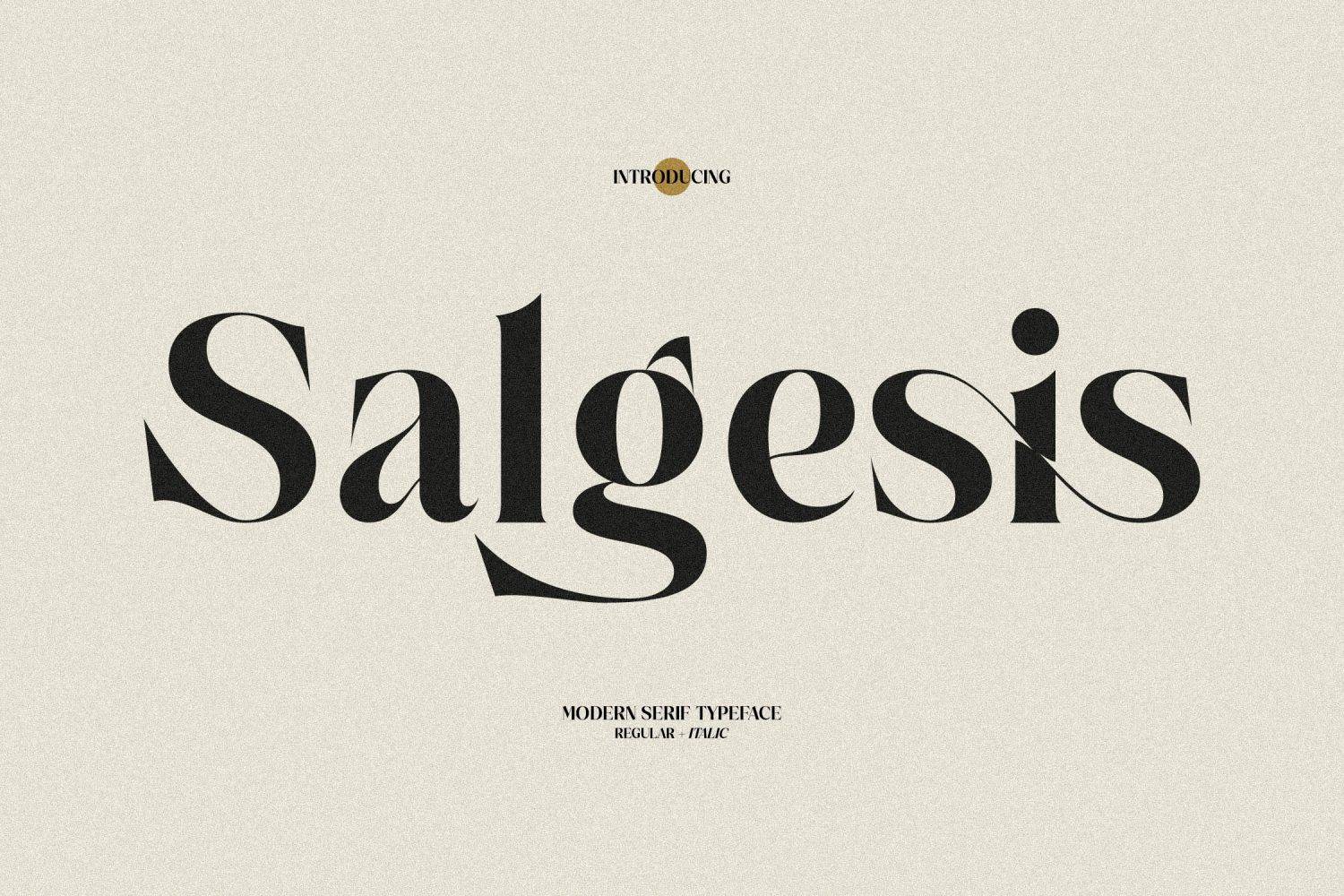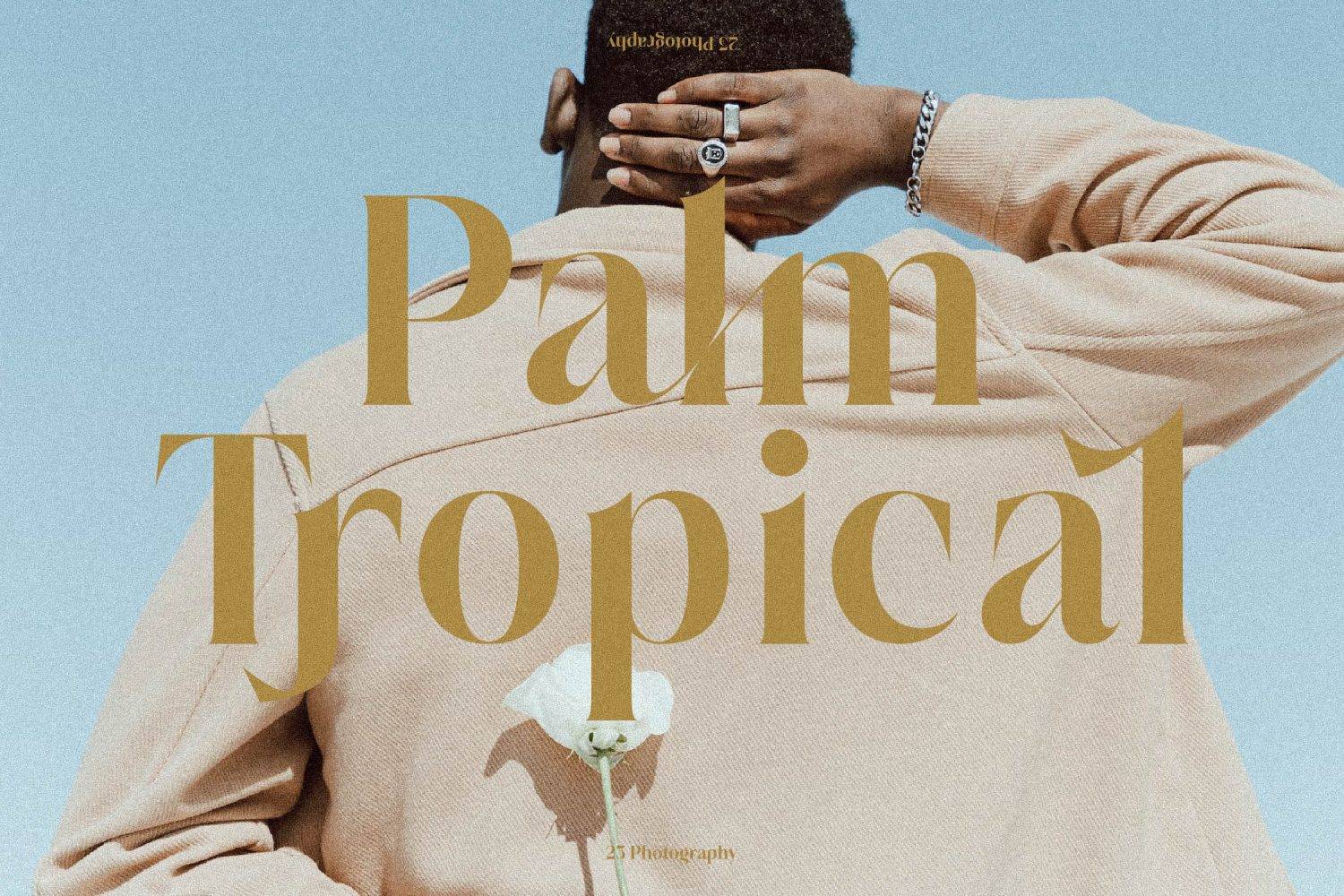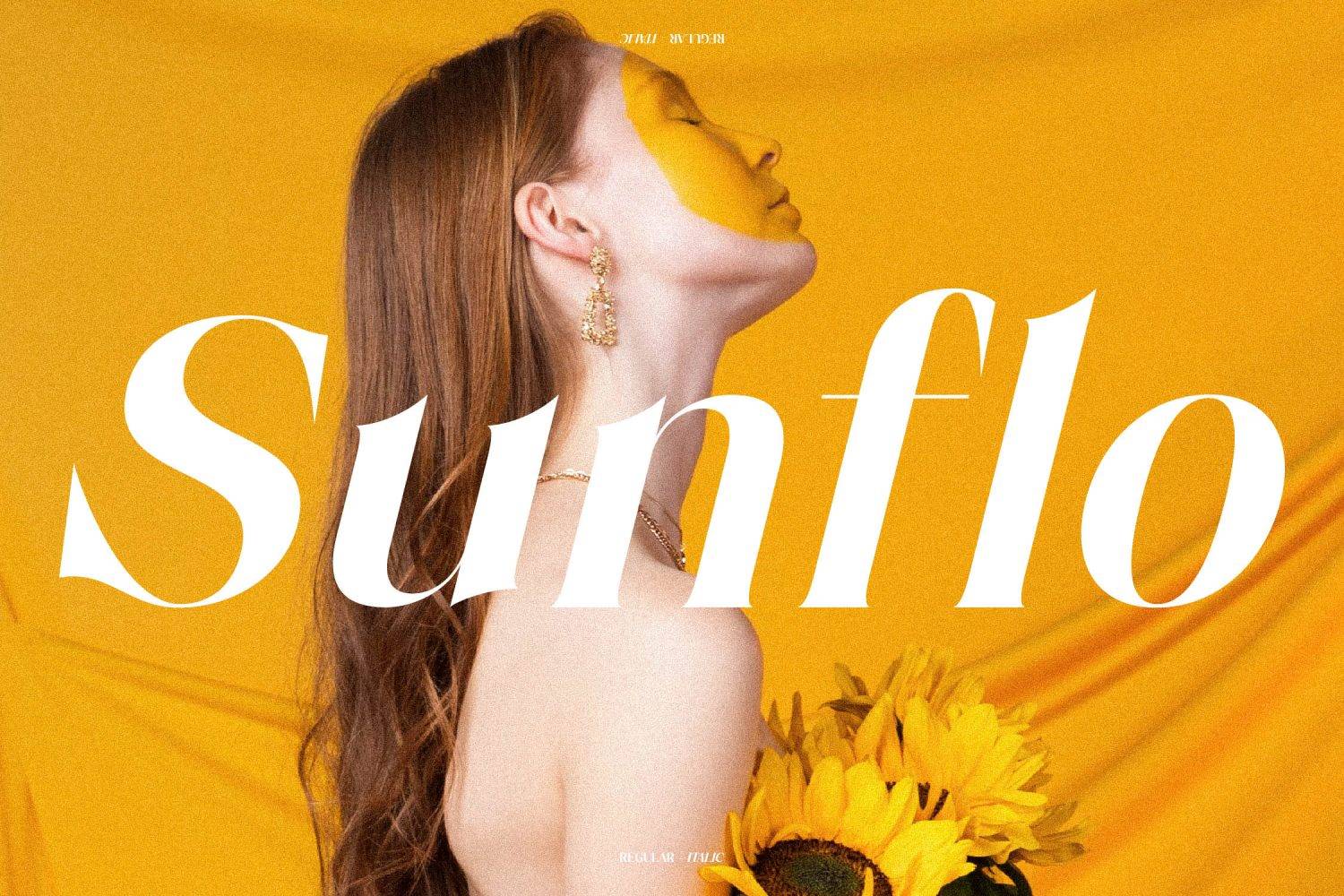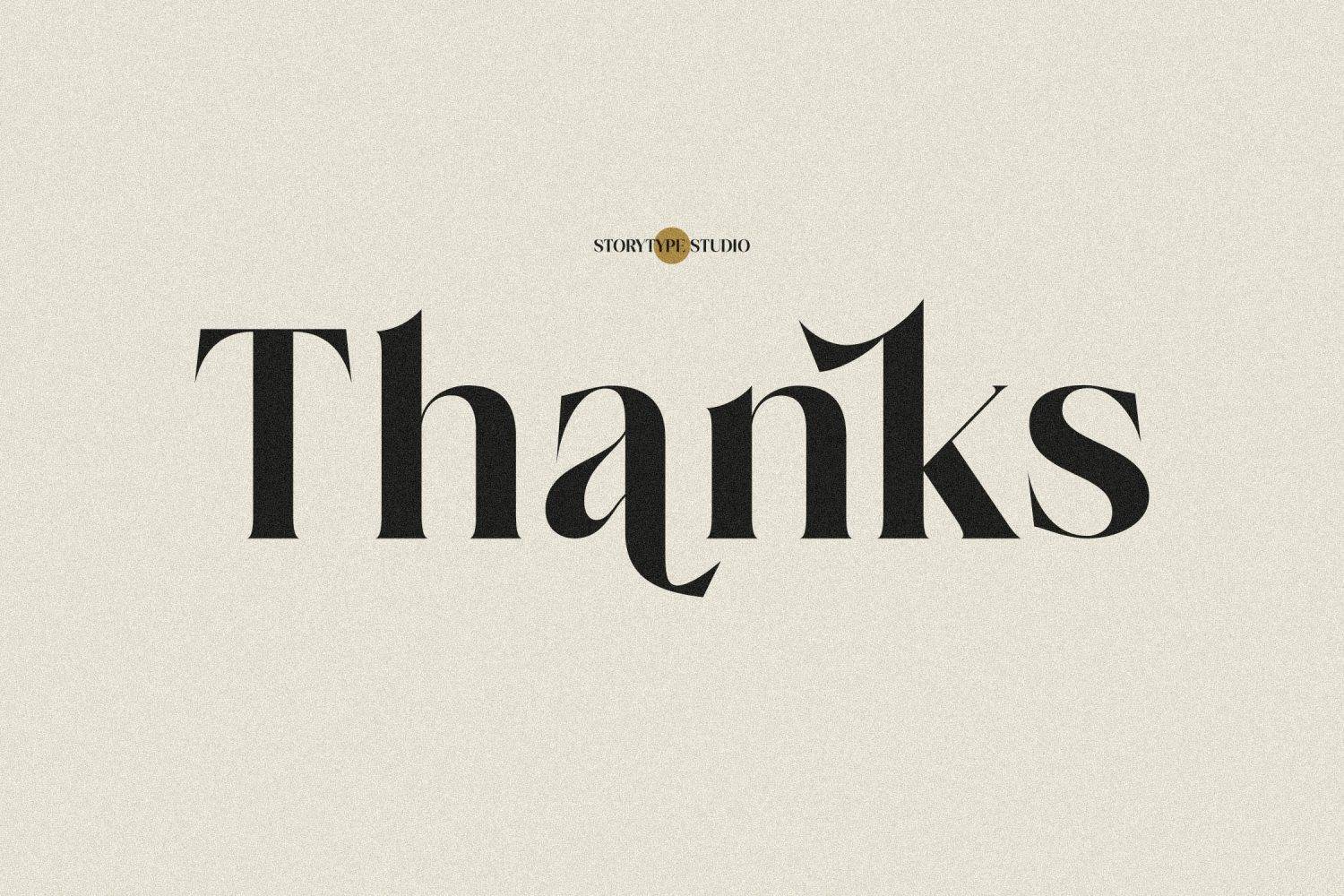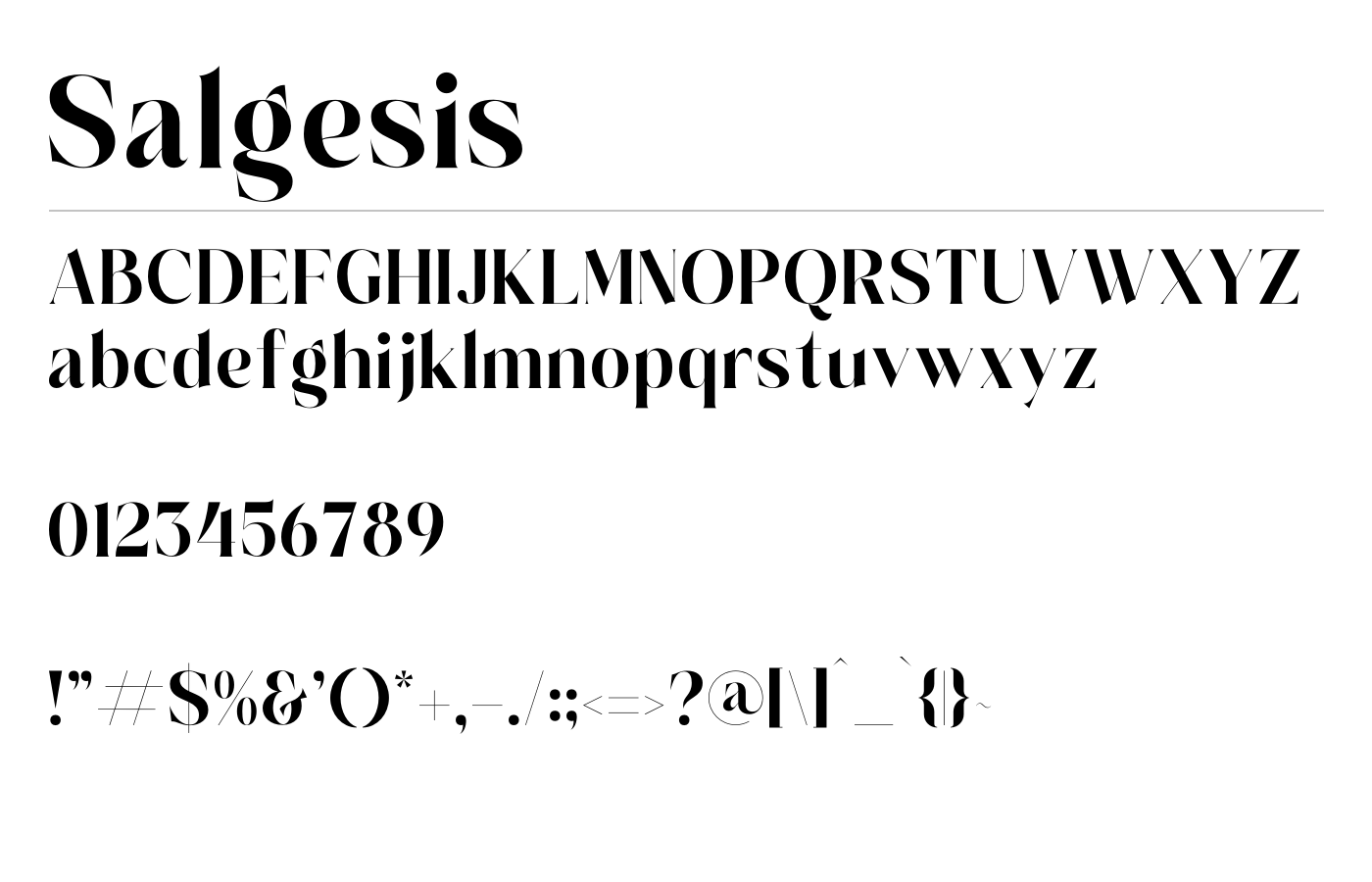
Salgesis is a modern serif font distinguished by its high contrast between thick and thin strokes and sharp, elegant serifs, giving it a sophisticated and luxurious feel. Its tall x-height and unique letterforms, such as the stylized lowercase "g" and distinctive "Q," make it perfect for fashion, editorial, and high-end branding projects that require a bold yet refined presence. This font works exceptionally well for headlines and logos where a striking, upscale aesthetic is desired.
Salgesis Font
About Salgesis Font